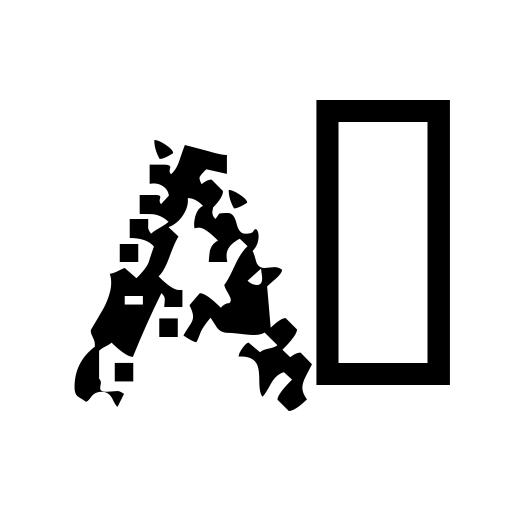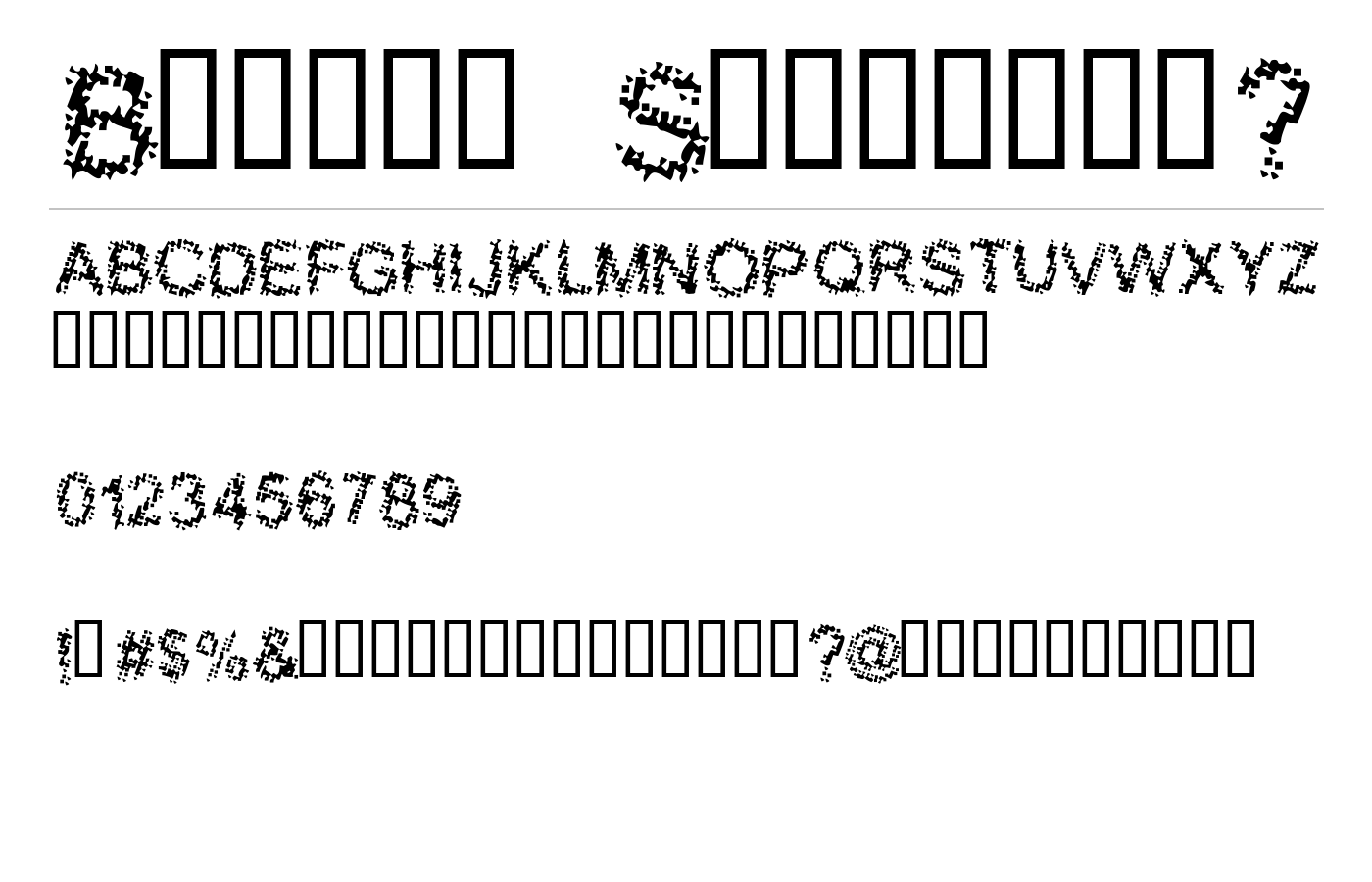
Bloody Shrapnel? is a bold, distressed sans serif font that features a fragmented, rough texture, giving the impression of shattered pieces or shrapnel. Its irregular, jagged edges create a chaotic, edgy feel, making it ideal for designs that require a dramatic, rebellious, or gritty style. This font works best for posters, horror or thriller-themed projects, and eye-catching headlines where a strong, unconventional impact is needed.
Bloody Shrapnel? Font
About Bloody Shrapnel? Font